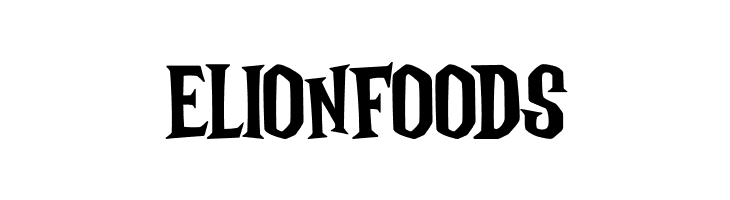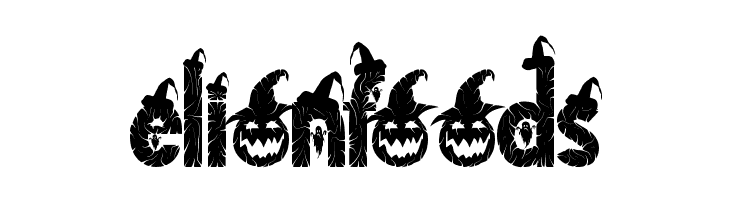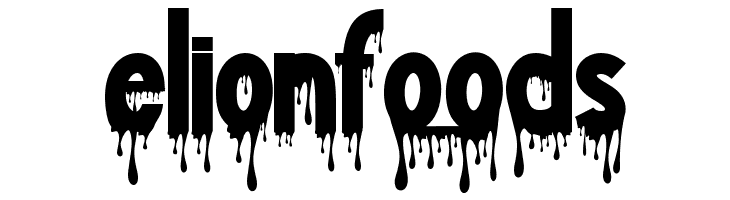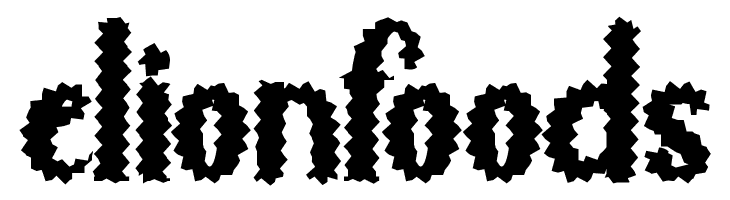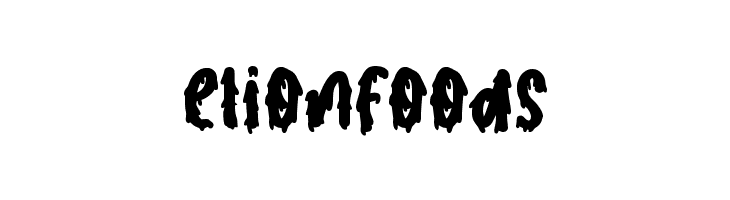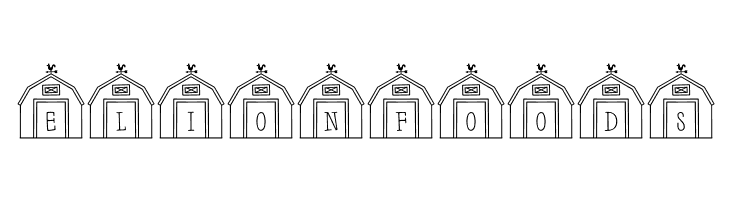
A bold, angular font with a spooky, hand-drawn style.
A jagged, horror-themed font with rough, textured characters.
A bold, horror-themed font with jagged, thorn-like details and a gothic style.
A bold, dripping font ideal for horror themes and Halloween designs.
A jagged, spooky font with a bold, distressed appearance.
A bold, jagged font perfect for spooky, dramatic themes.
A bold, jagged font with an eerie, unsettling style.
A spooky, dripping font perfect for horror themes.
A decorative font with characters enclosed in barn-like structures, ideal for rustic themes.
A decorative font with characters embedded in rooster silhouettes.